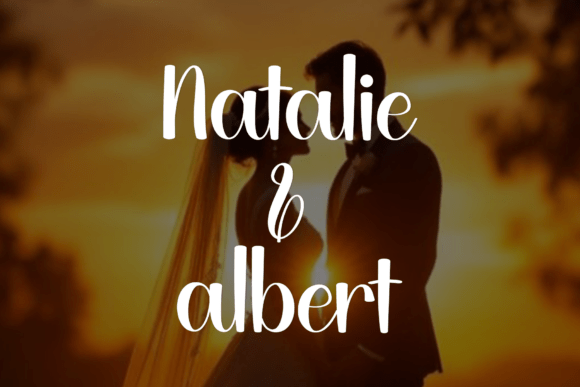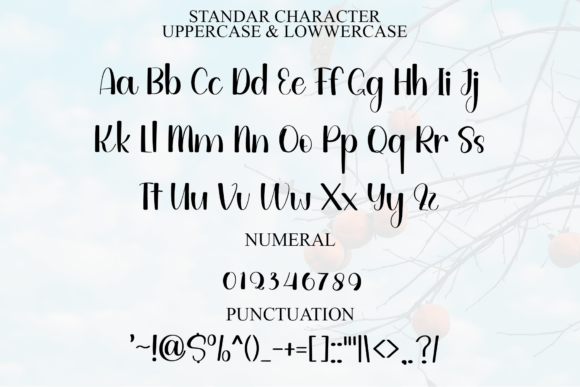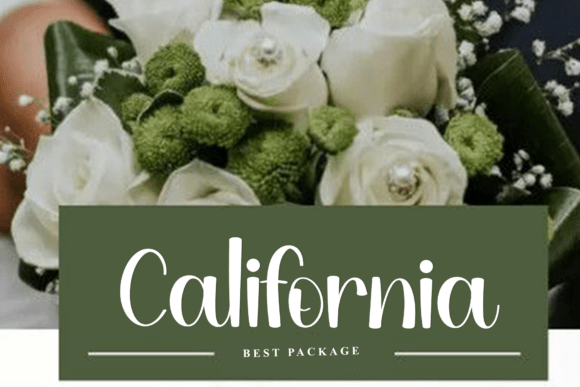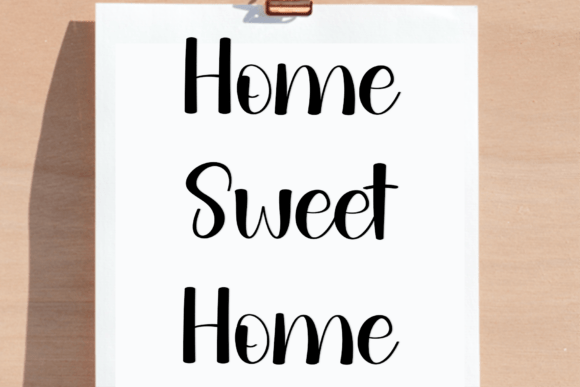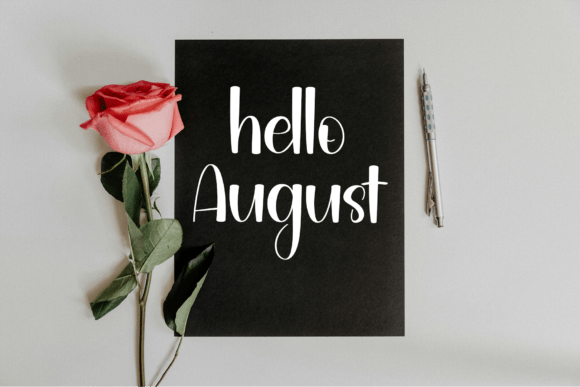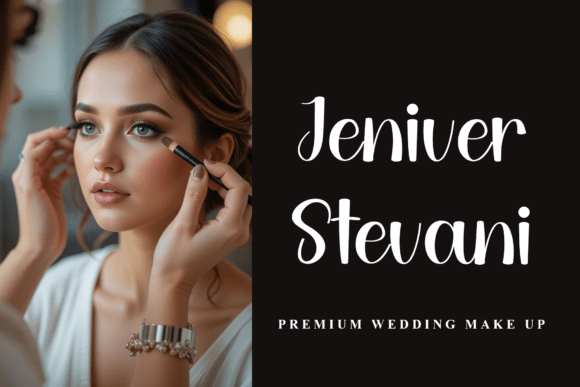
The Sweet Spot: How Cherry Font Can Elevate Your Designs
I’ll never forget the time I was working on a whimsical invitation for a friend’s birthday party. I had the perfect design concept, but something was missing – the right font. I scrolled through my font library, but nothing seemed quite right. That’s when I stumbled upon Cherry Font, and it was love at first sight! ✨ The playful, hand-drawn aesthetic and warm feel instantly captured the party’s lighthearted spirit. In this article, I’ll share why Cherry Font has become a go-to in my design toolkit and how you can make the most of it in your projects.
Here’s what makes Cherry Font a standout:
- ✅ Warm and Friendly Feel: The round, playful strokes create a relaxed and approachable vibe, perfect for personal projects, invitations, and social media graphics.
- ✅ Charming Aesthetic: The hand-drawn look adds a fun and unique touch to any design, making it perfect for crafters and creative hobbyists.
A few things to keep in mind:
- ⚠️ Limited Formality: Cherry Font’s casual nature might not make it the best fit for formal or professional projects that require a more serious tone.
- 🤔 Legibility at Small Sizes: While the font is beautiful, it can get a bit tricky to read at very small sizes. It’s best used at larger sizes where its charm can shine.
The Story Behind Cherry Font
While the origins of Cherry Font might be shrouded in mystery, it’s easy to imagine a designer with a passion for playful typography creating it. Perhaps they wanted to craft a font that felt like a warm hug – something that could bring joy and whimsy to everyday designs. The result is a font that’s both charming and versatile, suitable for a wide range of creative projects.
| Font Name | Cherry Font |
| What makes Cherry Font unique? | Cherry Font’s unique blend of playful, hand-drawn strokes and warm feel sets it apart. It’s perfect for adding a personal touch to designs. |
| Is Cherry Font suitable for professional projects? | While Cherry Font’s casual nature makes it ideal for personal projects, it might not be the best fit for formal or professional projects that require a more serious tone. |
Cherry Font has undoubtedly become a favorite in my design arsenal, and I hope this guide has inspired you to give it a try. Whether you’re working on personal projects, crafting invitations, or creating social media graphics, Cherry Font’s playful charm is sure to elevate your designs.